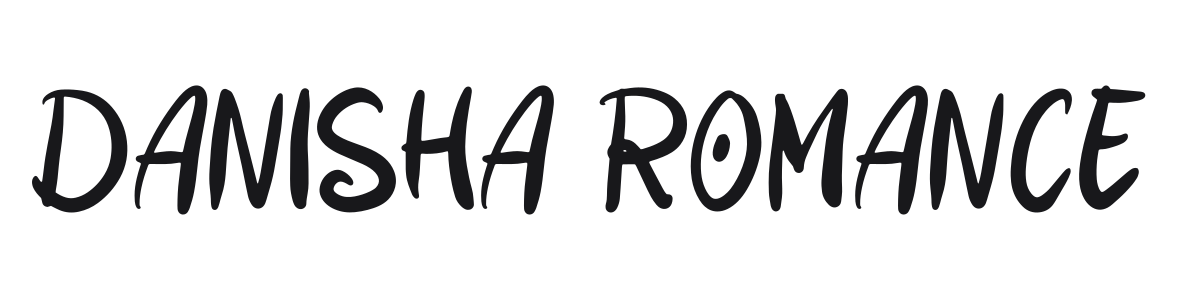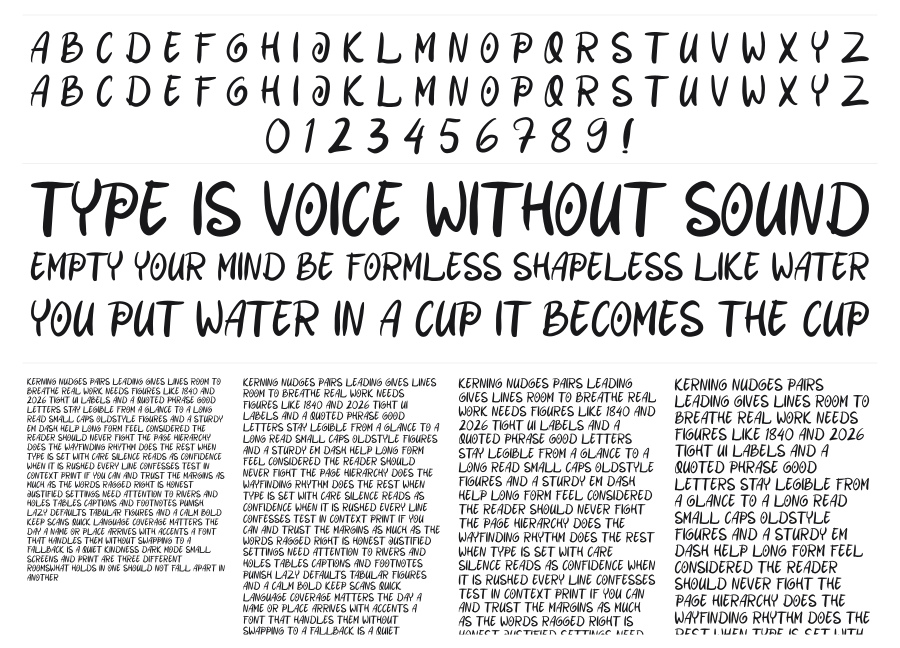
Danisha Romance
Danisha Romance is a bold brush script with a spontaneous, hand-painted character. Thick downstrokes and tapered transitions give it natural ink energy, making it feel warm and expressive without being fussy. It works well at large sizes wherever a casual, human touch is needed.